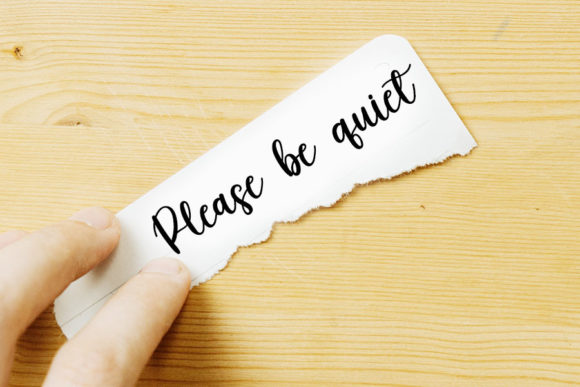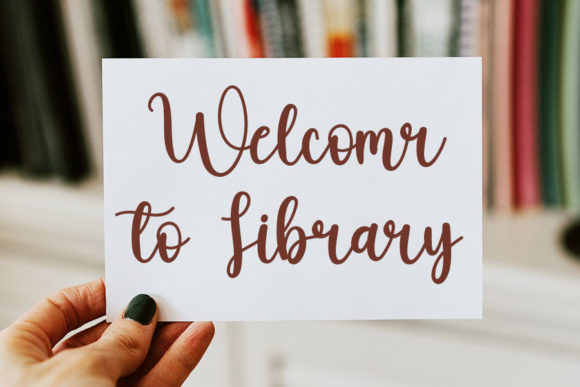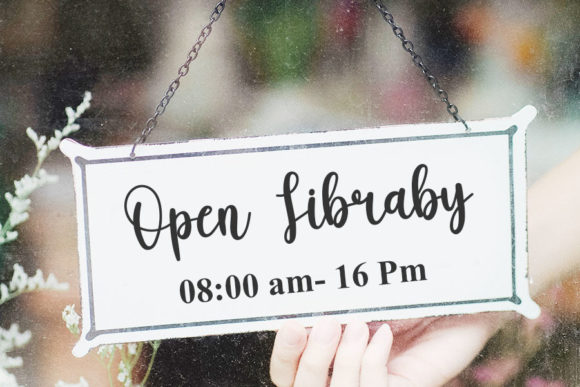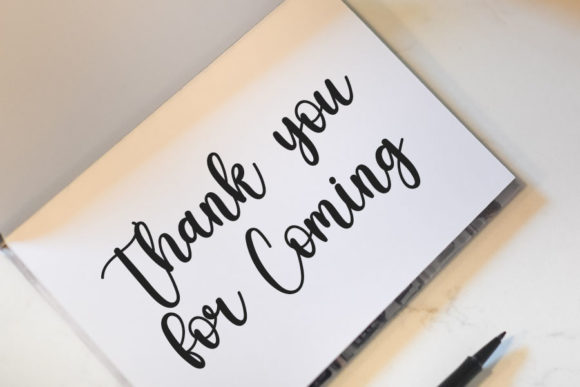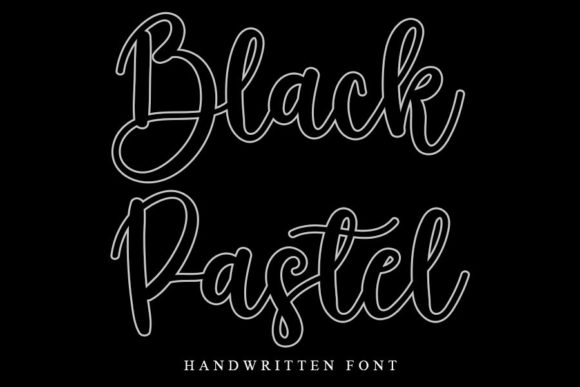
Discover the Elegance of Black Pastel Font: Elevate Your Designs with a Lovely Script Handwritten Font
In the world of typography, fonts play a crucial role in conveying the tone and aesthetic of a design. For designers and crafters seeking a beautiful and refreshing look, the Black Pastel Font is an excellent choice. This lovely and delicate script handwritten font exudes elegance and class, making it perfect for a variety of design projects.
What is Black Pastel Font?
Black Pastel is a carefully crafted script handwritten font, designed to bring a touch of sophistication and refinement to your designs. Its unique and elegant style makes it an ideal choice for those who want to add a personal touch to their work. Whether you’re creating a logo, invitation, or social media graphic, Black Pastel Font is sure to impress.
Key Features of Black Pastel Font
- Elegant and Delicate Design: Black Pastel Font boasts a beautiful, handwritten script style that adds a touch of elegance to any design.
- Highly Versatile: This font is perfect for a wide range of design projects, including logos, invitations, social media graphics, and more.
- Easy to Read: Despite its delicate nature, Black Pastel Font is highly legible, making it suitable for both headings and body text.
- Unique and Refreshing: The font’s distinctive style ensures that your designs will stand out from the crowd and leave a lasting impression.
Uses of Black Pastel Font
Black Pastel Font is an incredibly versatile font that can be used in a variety of design projects, including:
- Logos and Branding: Create a sophisticated and elegant logo that reflects your brand’s personality.
- Invitations and Stationery: Add a touch of refinement to your invitations, greeting cards, and other stationery designs.
- Social Media Graphics: Elevate your social media presence with beautiful and engaging graphics that showcase your brand’s style.
- Packaging and Product Design: Use Black Pastel Font to create eye-catching packaging and product designs that stand out on store shelves.
Tips for Using Black Pastel Font
To get the most out of Black Pastel Font, consider the following tips:
- Pair with Contrasting Fonts: Combine Black Pastel Font with bold and modern fonts to create a striking contrast.
- Use on Light Backgrounds: Showcase the font’s elegance by using it on light-colored backgrounds.
- Experiment with Colors: Try pairing Black Pastel Font with different colors to create unique and eye-catching designs.
Black Pastel Font is a beautiful and elegant script handwritten font that can elevate your designs to new heights. Its unique and refreshing style makes it perfect for designers and crafters seeking to add a touch of sophistication and refinement to their work. With its versatility, legibility, and elegance, Black Pastel Font is an excellent choice for a wide range of design projects.